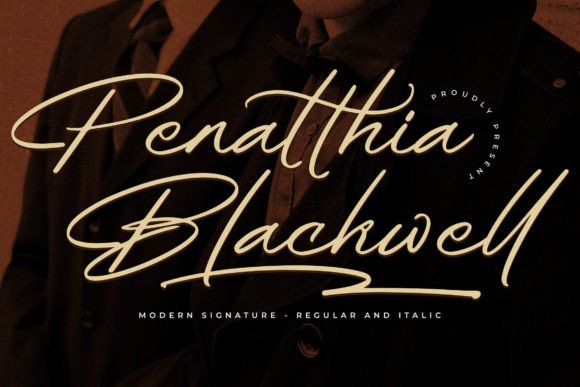
In the realm of digital expression, where words dance across screens, there lies a hidden gem, a font with a soul that captivates the senses and ignites the imagination: Penatthia Blackwell. This modern script beckons you to indulge in its enchanting allure, a symphony of curves and flourishes that transforms ordinary text into an art form.
Penatthia Blackwell is the brainchild of Glorytype Studio, a team of passionate typographers who understand the power of fonts to evoke emotion and convey messages with unparalleled grace. With its distinctive style, Penatthia Blackwell stands out from the crowd, a true original that will elevate your creative projects to new heights.
Step into a world where letters dance and words flow like a gentle stream. Penatthia Blackwell invites you to explore the realm of visual storytelling, where every word carries weight and every design tells a tale. Whether you're crafting a heartfelt letter, designing a captivating logo, or creating a stunning website, Penatthia Blackwell is your trusted companion, ready to transform your ideas into visual masterpieces.
Dive into a sea of possibilities with Penatthia Blackwell, the ultimate font for those who seek beauty and distinction. Its versatility knows no bounds, effortlessly adapting to a wide array of creative endeavors. From logos that command attention to branding projects that exude sophistication, Penatthia Blackwell is the key to unlocking your creative potential.
Experience the joy of reading with Penatthia Blackwell, the perfect font for websites that demand readability and elegance. Its meticulously crafted characters ensure effortless reading, allowing your words to shine and your message to resonate with clarity. Penatthia Blackwell is the font that makes reading a pleasure, a font that respects the written word and enhances the reading experience.
Penatthia Blackwell is more than just a font; it's a gateway to a world of self-expression and creativity. Its beauty and functionality make it the ideal choice for a vast array of projects, from homeware designs that radiate warmth to product packaging that exudes professionalism. Whether you're creating mugs with inspiring quotes, posters that make a statement, or shopping bags that turn heads, Penatthia Blackwell is your creative ally, ready to bring your vision to life.
With Penatthia Blackwell, your t-shirts will become canvases for artistic expression, your book covers will captivate readers with their allure, and your name cards will leave a lasting impression. Its versatility extends to invitation cards, greeting cards, labels, photography, watermarks, and special events, adding a touch of elegance and sophistication to every endeavor.
Penatthia Blackwell is not just a font; it's an experience. Its beauty captivates, its versatility empowers, and its functionality simplifies. Embrace the world of Penatthia Blackwell, and let your creativity soar to new heights. Transform your projects into works of art, engage your audience with captivating designs, and leave an indelible mark on the digital landscape.